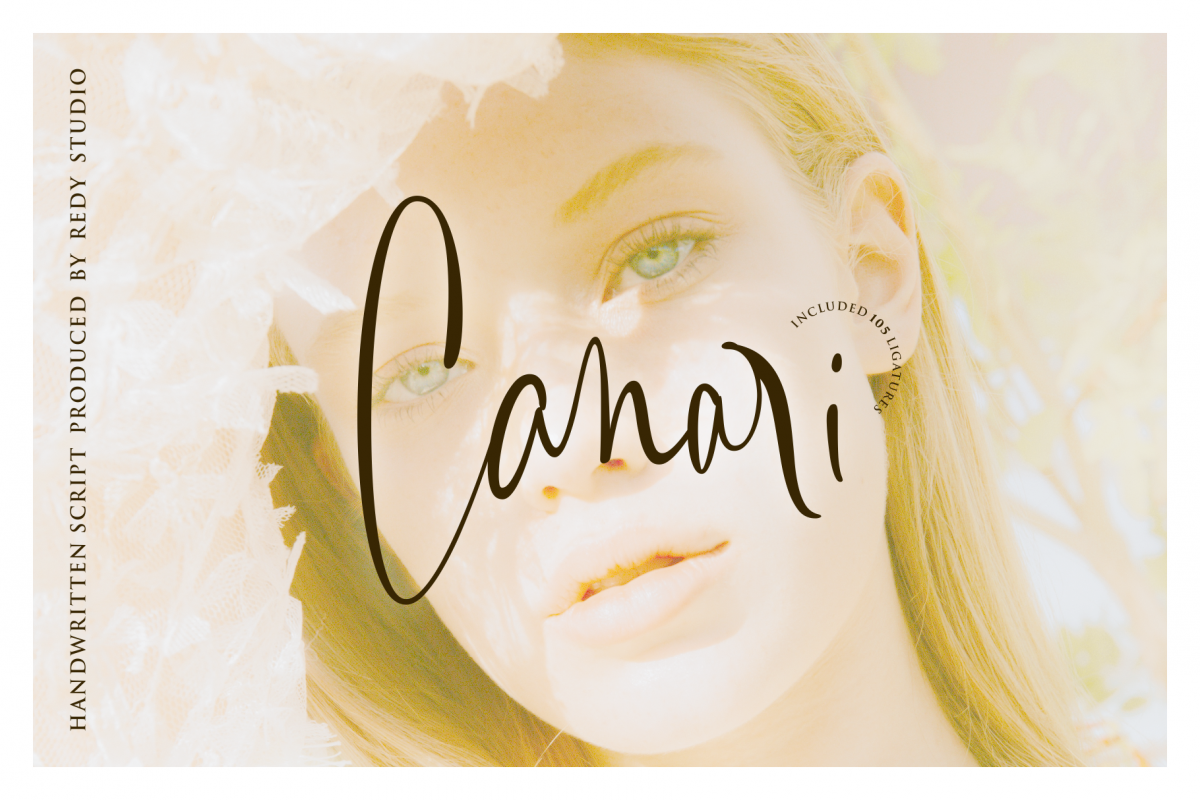
Canari | Signature Font
Introducing Canari is a handwritten signature typeface coming with more than 105 stylistic ligatures. Its classy look makes it the perfect fit for signature logos, printed quotes, wedding invitation cards, social media headers, product packaging, etc and also comes with numbers, punctuation, ligatures and it also supports other languages :)